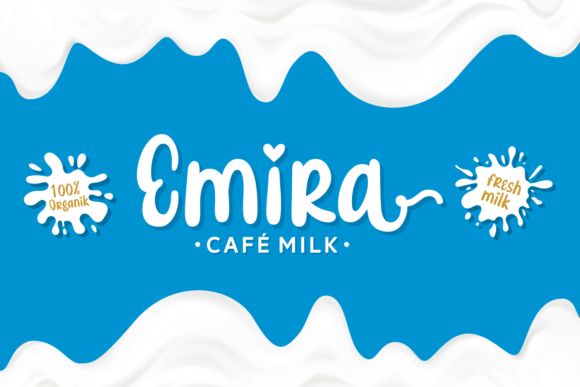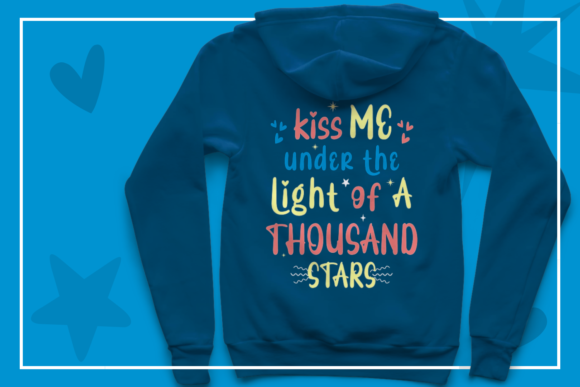
Introduction to Milky Tasty Font
Milky Tasty is a beautiful handwritten font with a whimsical twist.
Get inspired by its cute and adorable feel .
Key Features of Milky Tasty Font
Why Choose Milky Tasty Font?